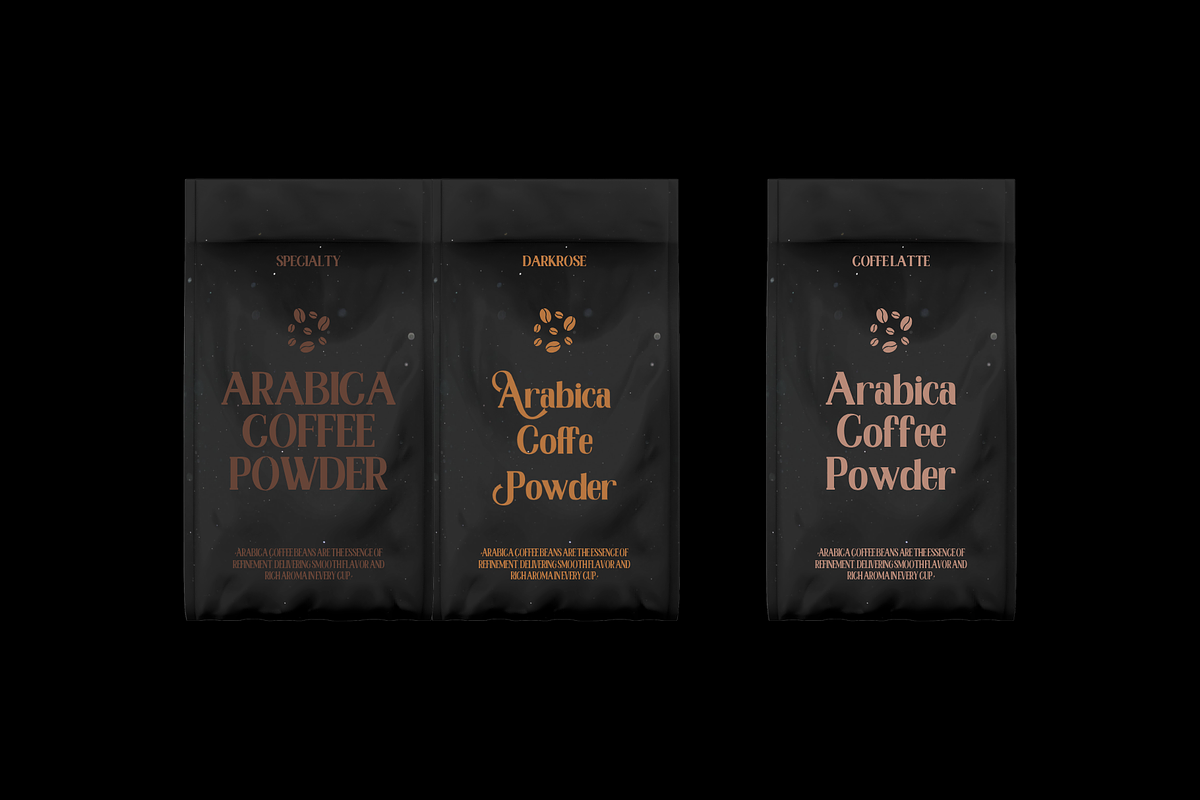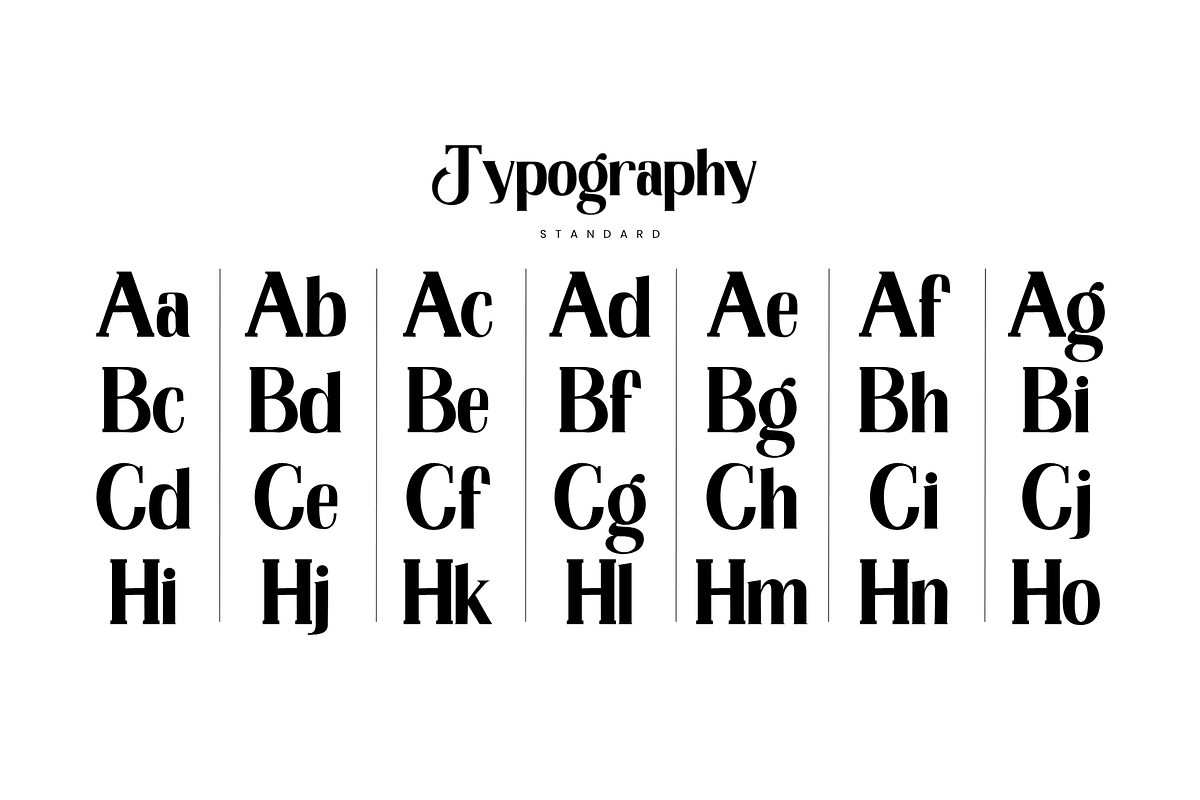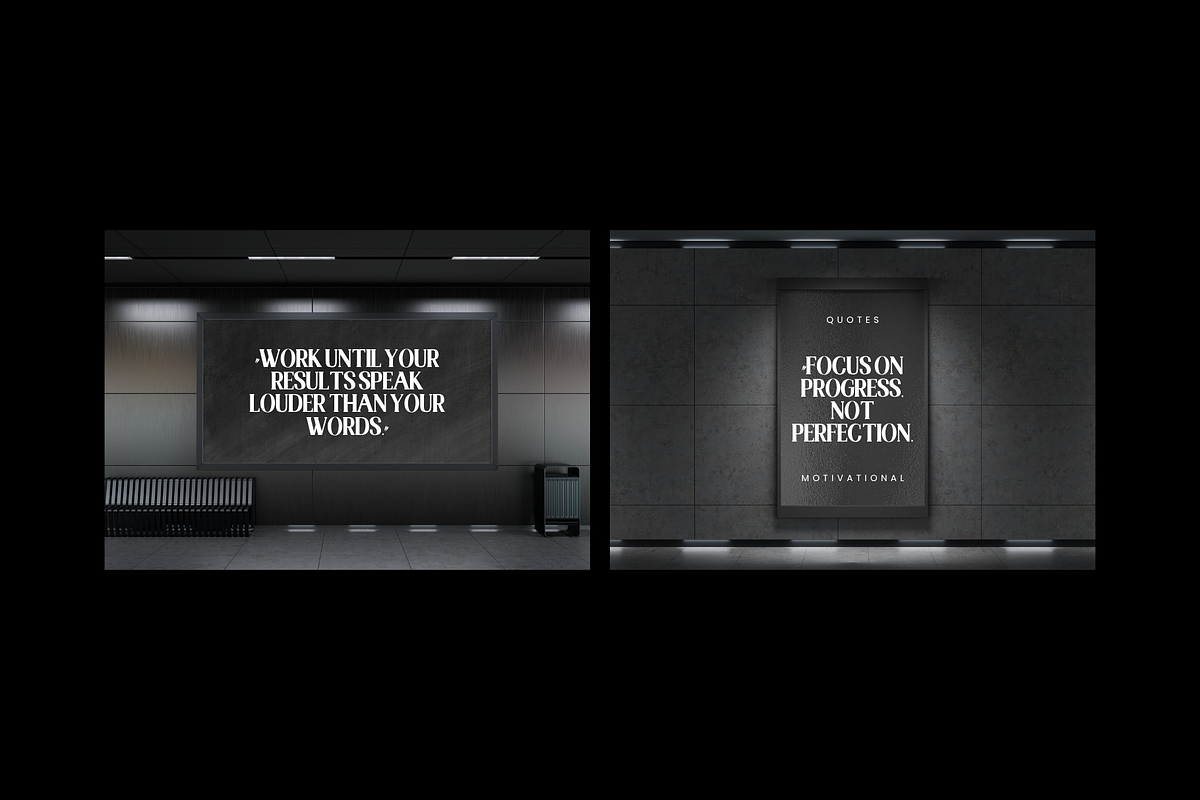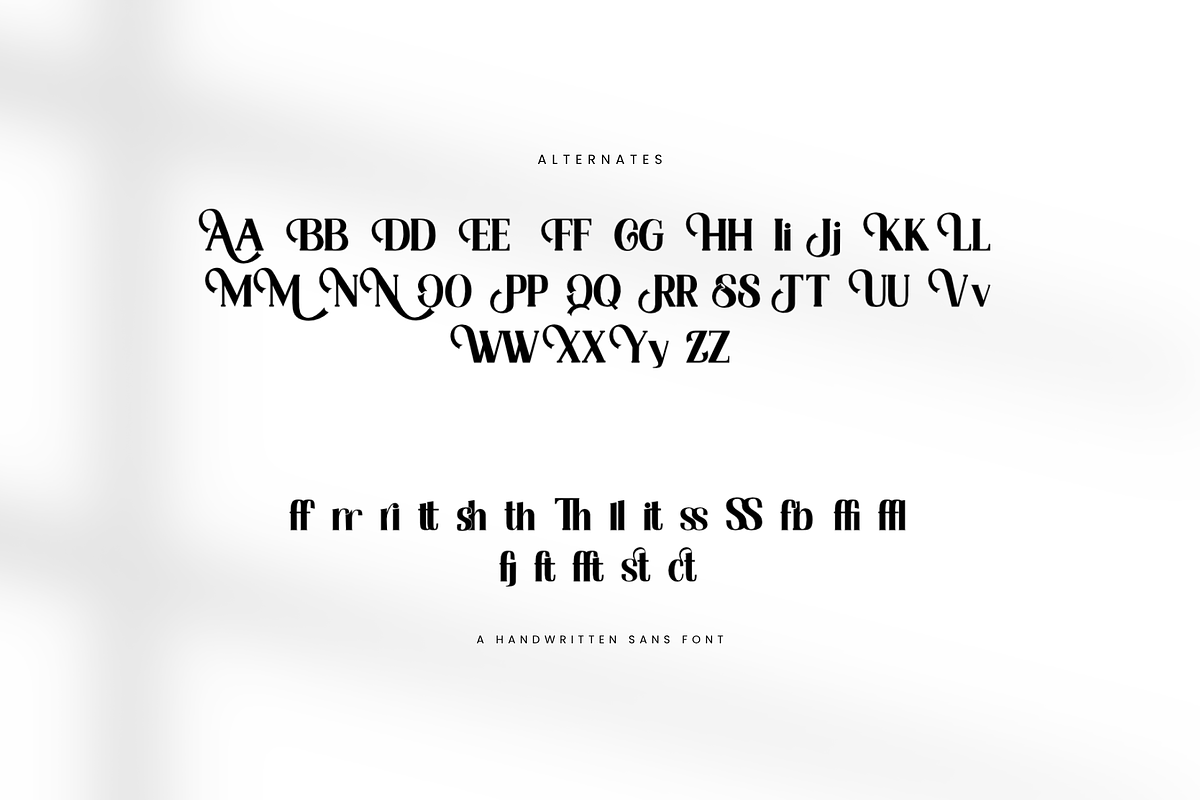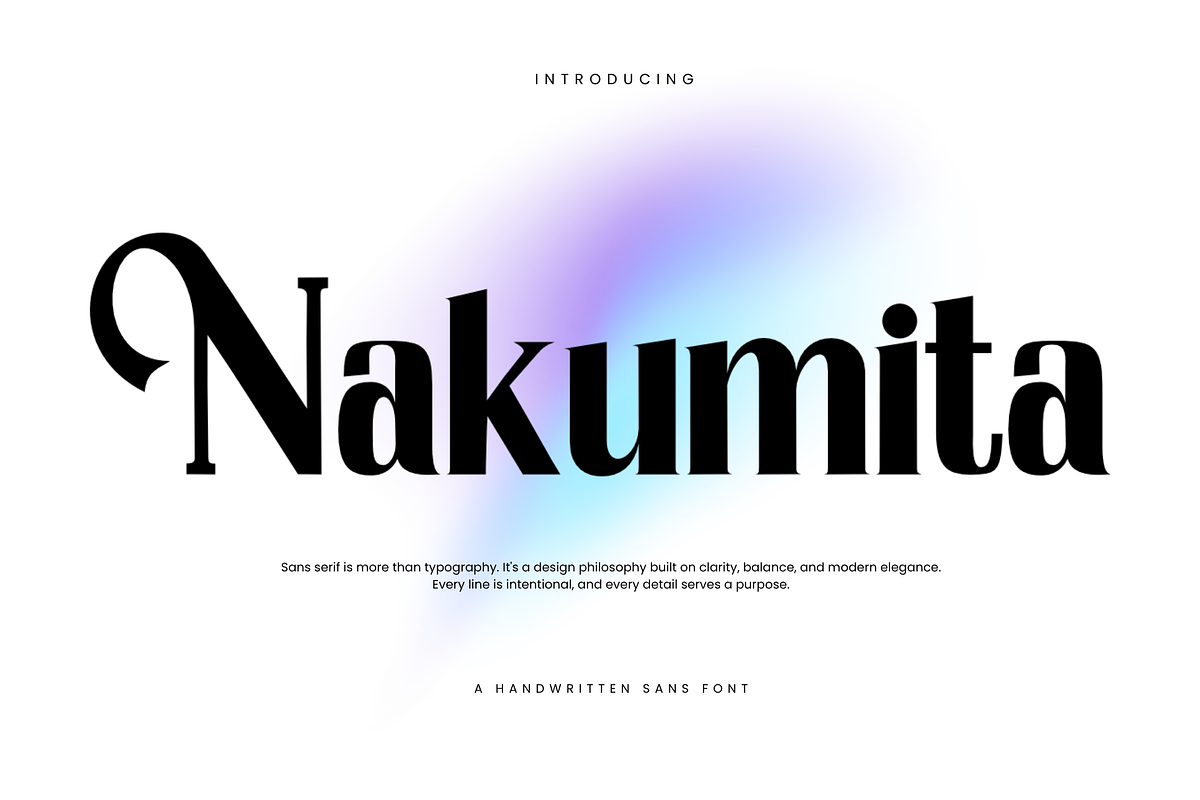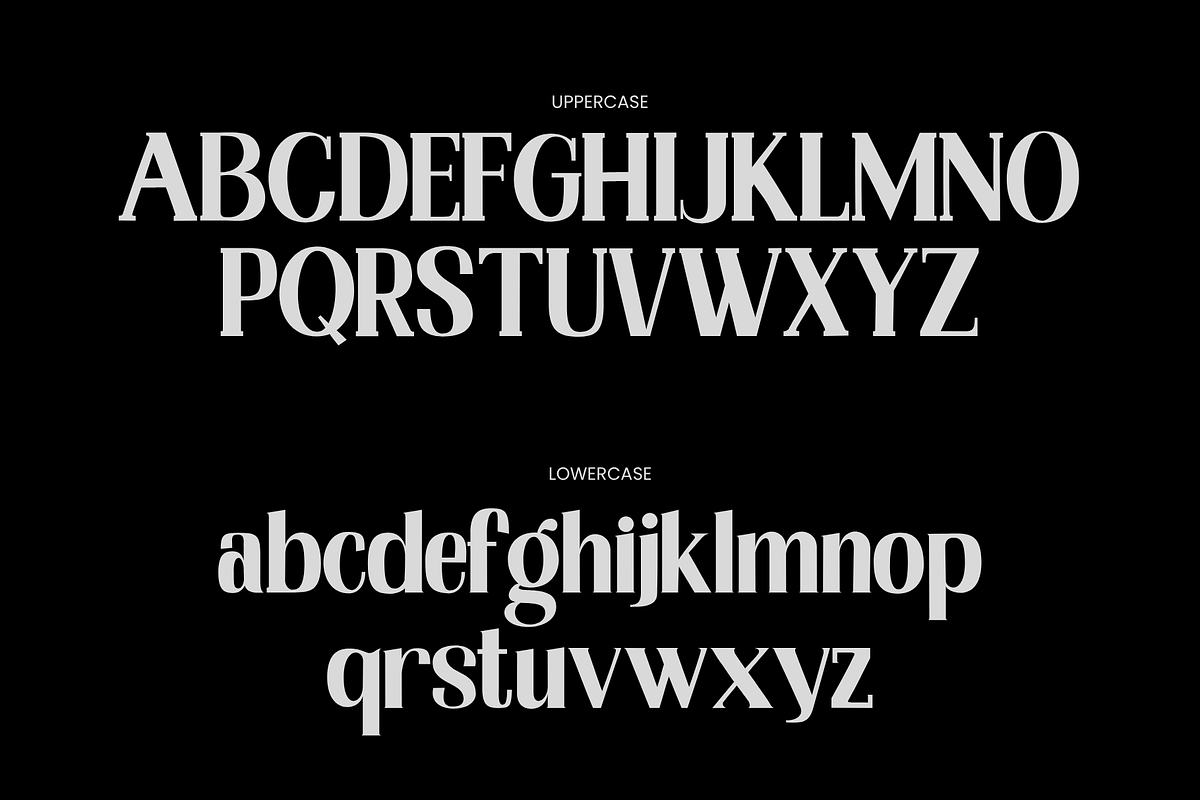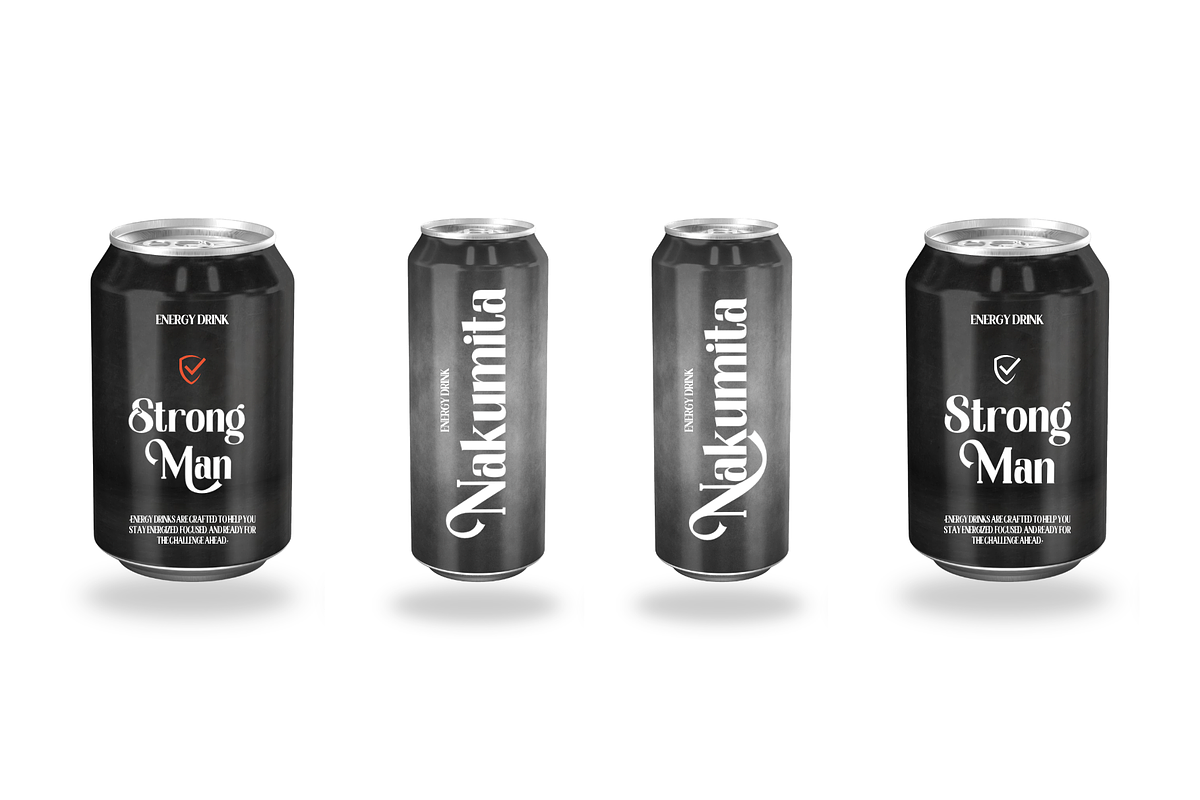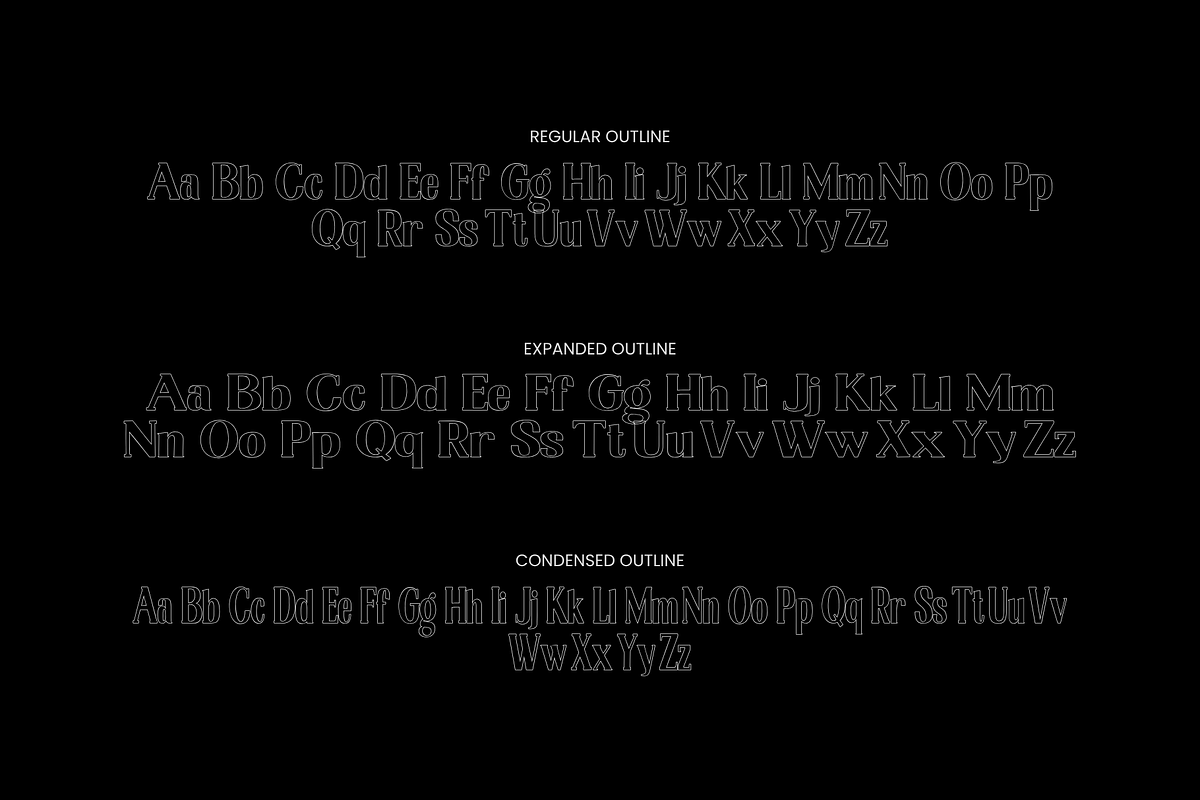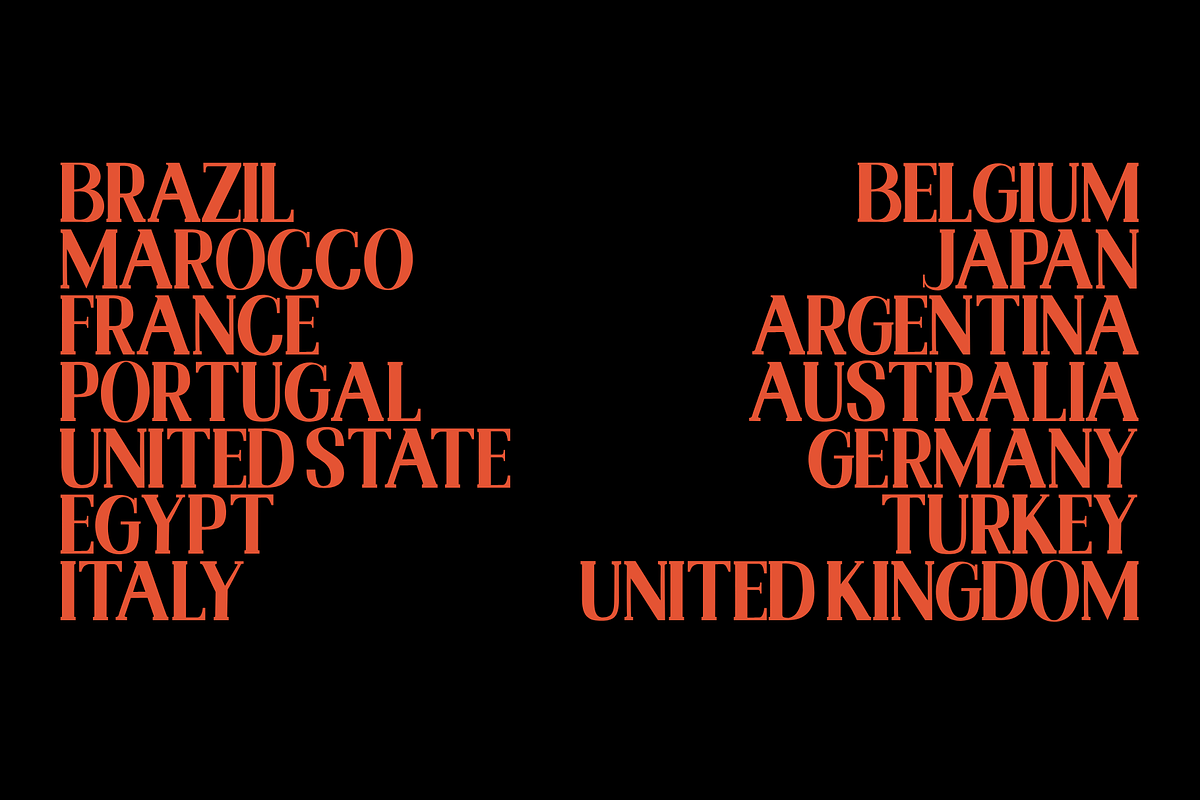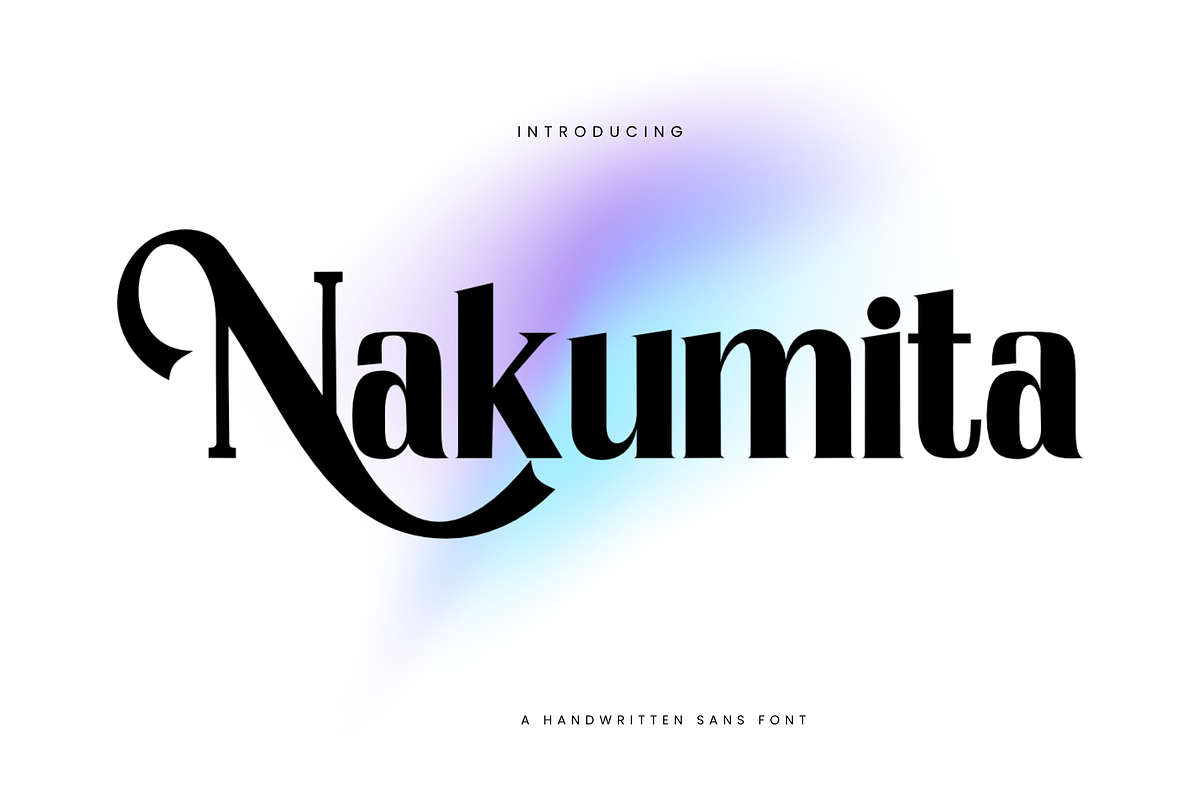
Nakumita
Nakumit Serif.is a Serif Display Font with a modern, classy, fun, unique and versatile style. It looks amazing at display size and is easy to read in text size. This font also has lots of unique alternatives and binders that will make for stunning design projects. Nakumita Serif. works well for branding projects, logos, wedding designs, social media posts, advertisements, product packaging, product designs, labels, photography, watermarks, invitations, or any project you are working on is font.